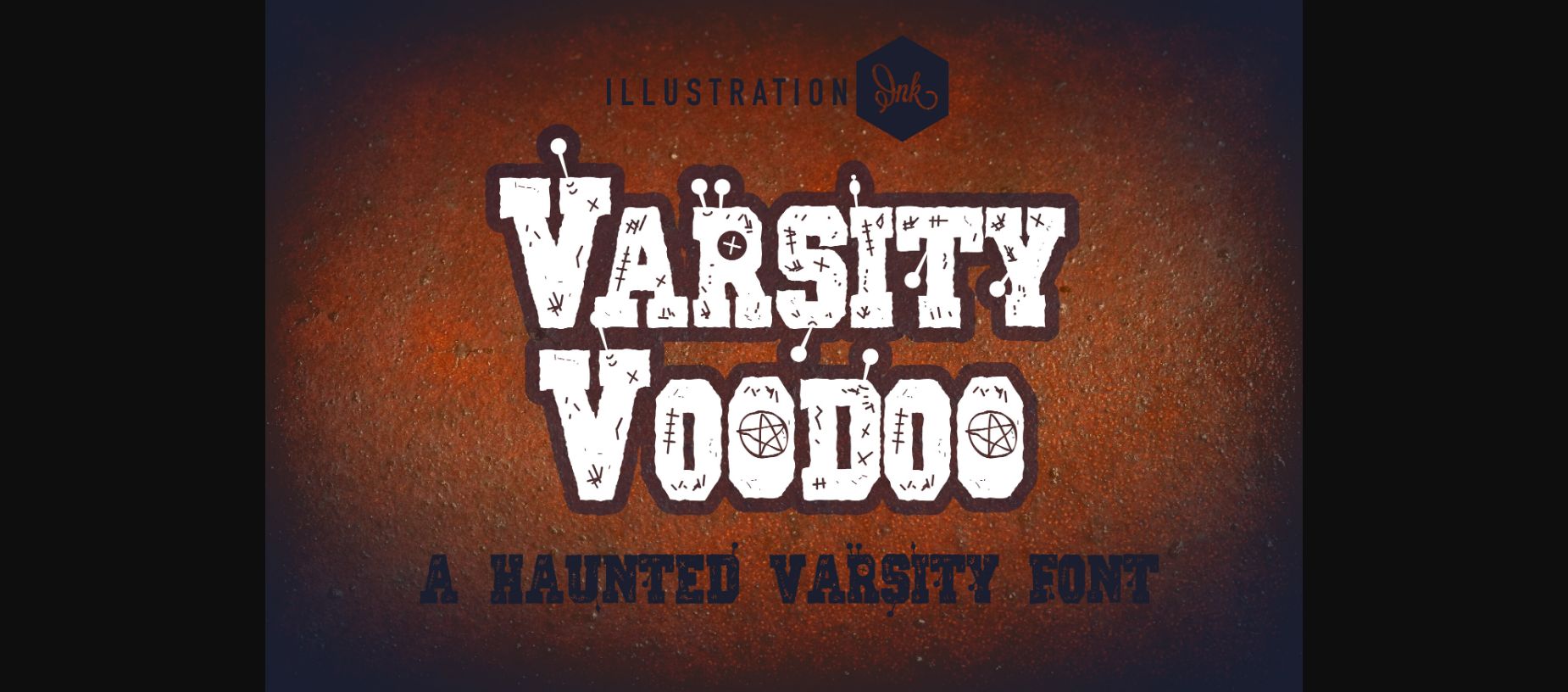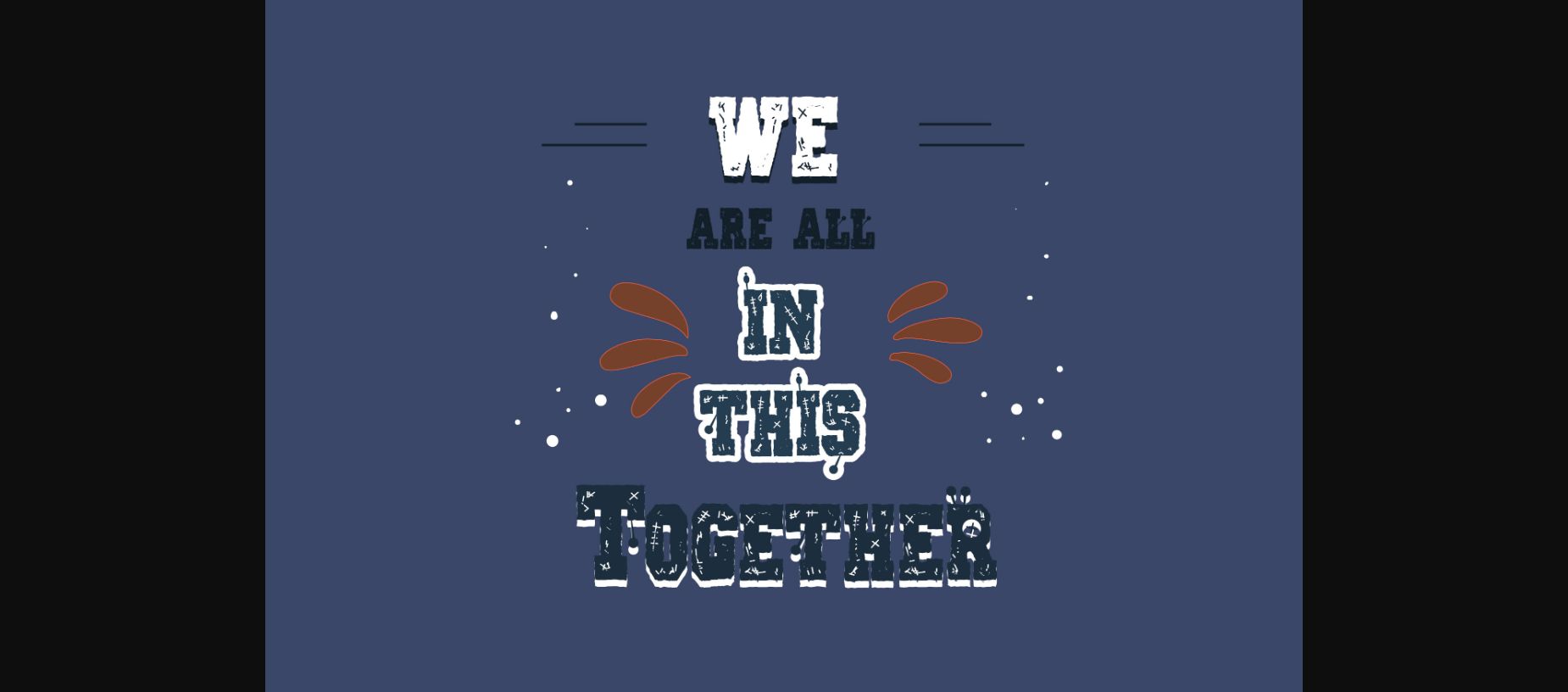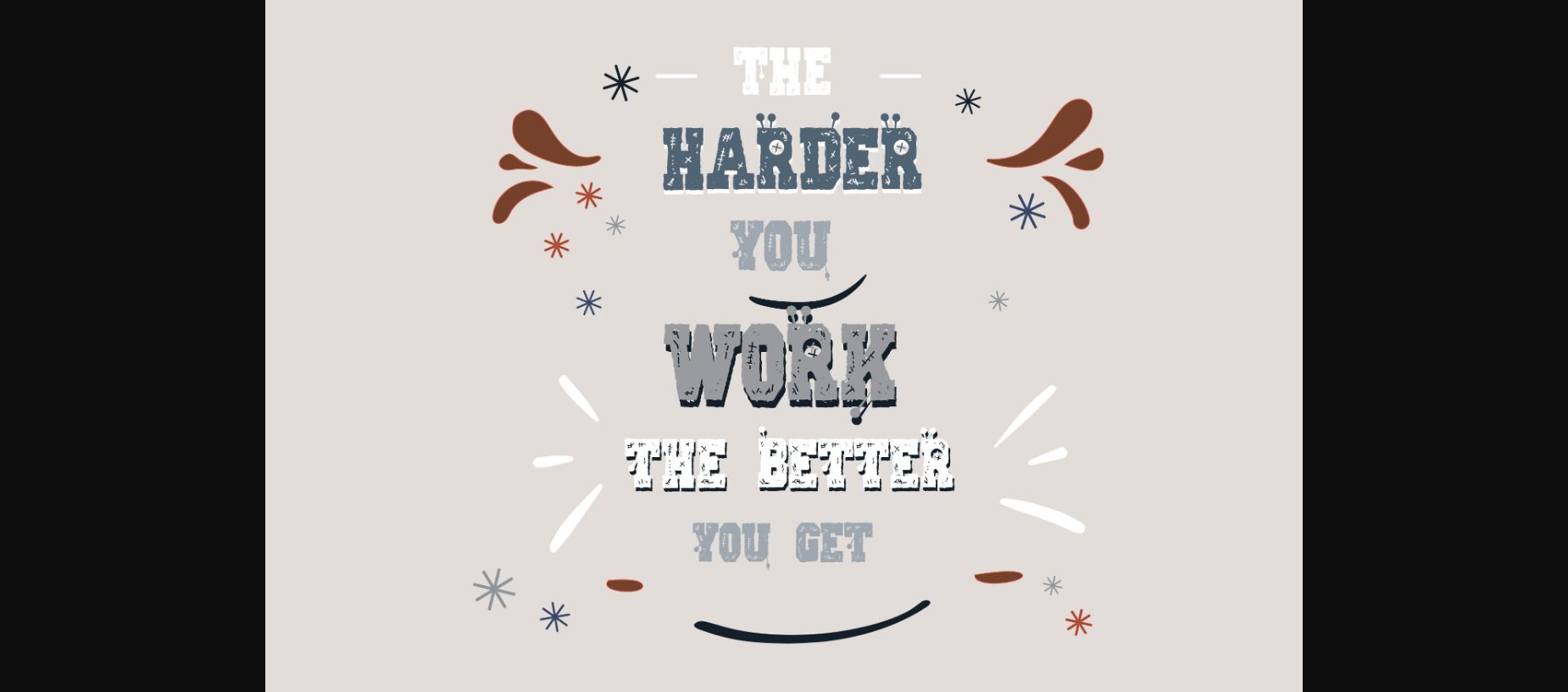
About Varsity Voodoo Font
Varsity Voodoo is a bold and assertive serif font. No matter the topic, this font will be an incredible asset to your fonts’ library, as it has the potential to elevate any creation.